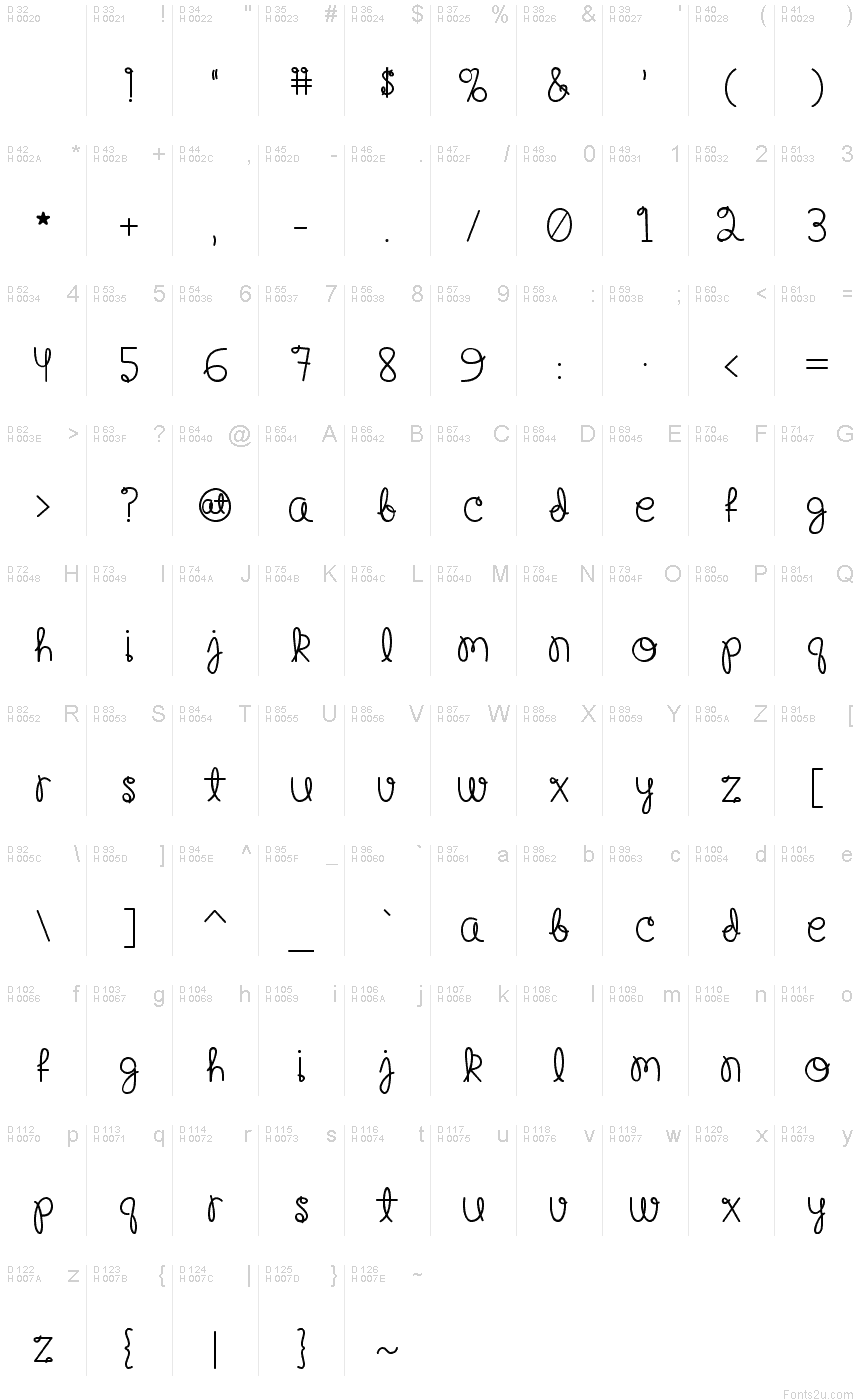
Happy Birthday, Baby (Bold) from Misti's Fonts by Misti Hammers is a free handwritten font with slim looping strokes and an airy informal silhouette. The letters stretch upward into tall arches and fall into deep rounded loops. Its uneven joins keep the writing lively.
It can turn a birthday invitation or party banner into part of the celebration rather than neutral text. The long loops also echo ribbons and streamers in children's packaging, greeting cards, and scrapbook graphics.